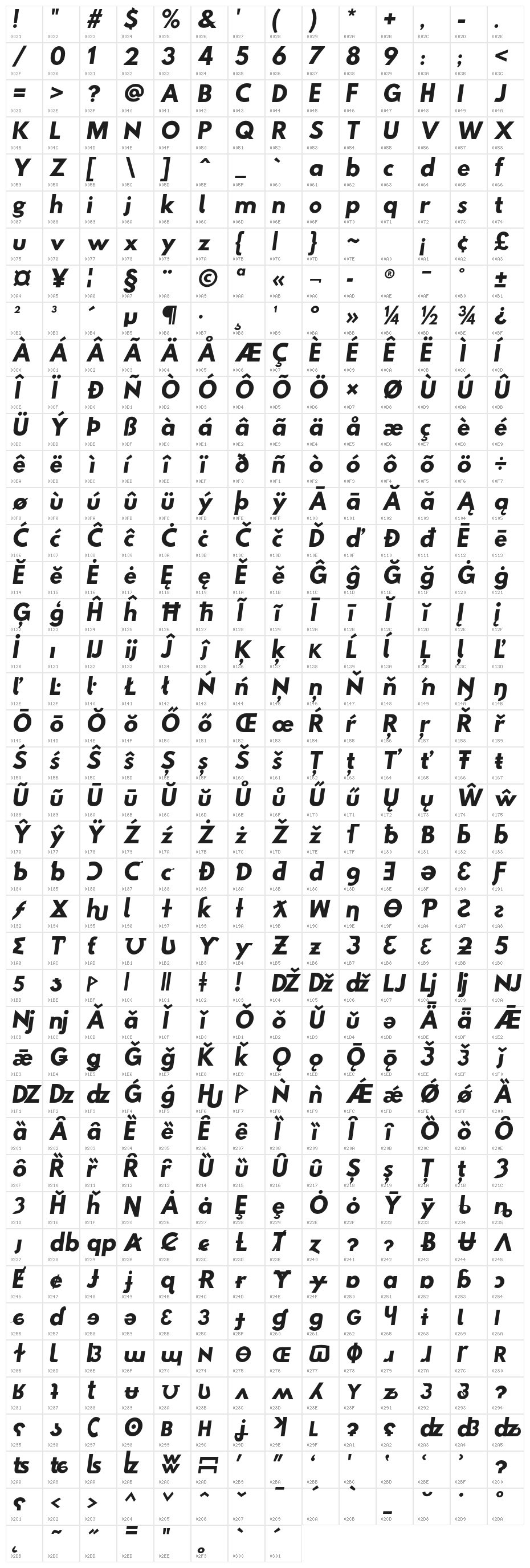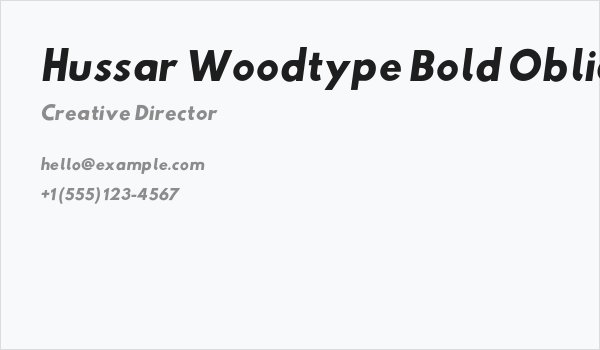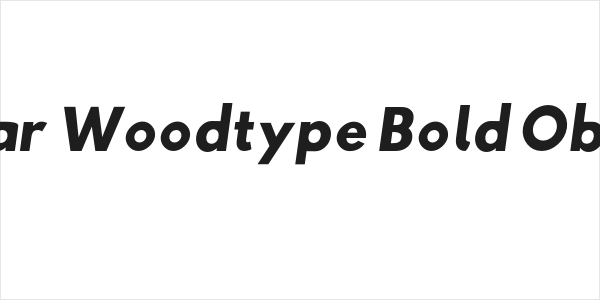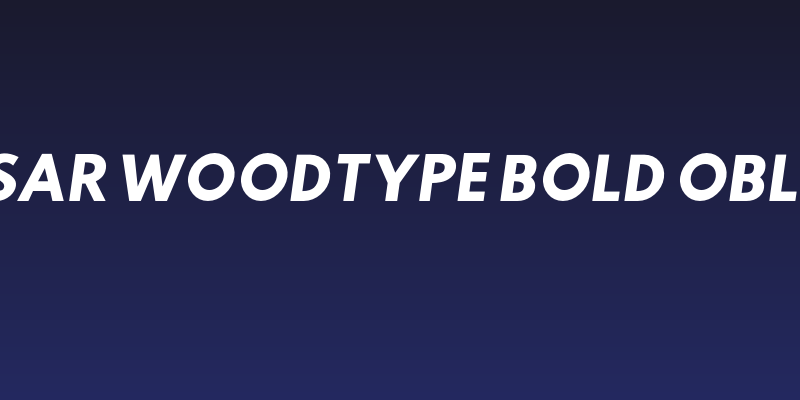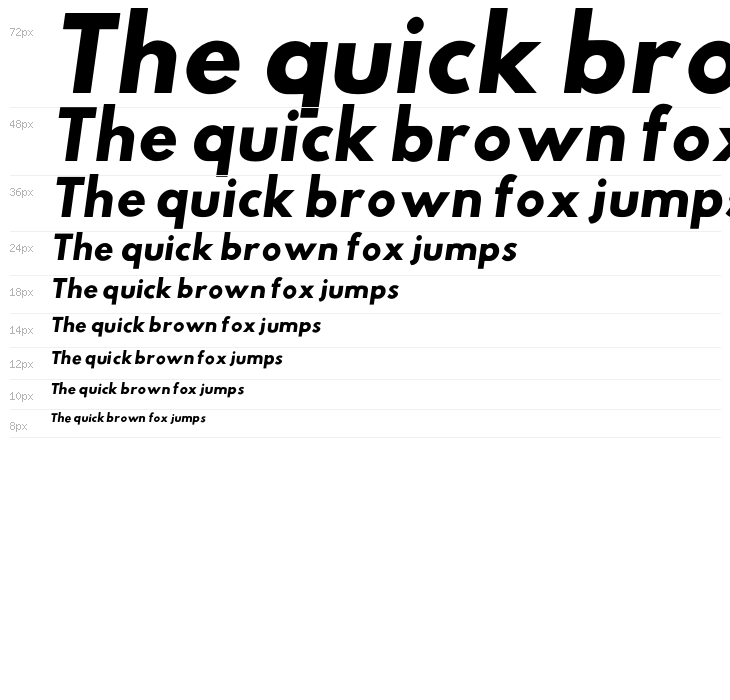
Hussar Woodtype Bold Oblique Font
Hussar Woodtype Bold Oblique Description
This font features a bold and oblique style with a strong presence, characterized by its thick strokes and slanted design. The uppercase and lowercase letters maintain a consistent weight, providing a uniform appearance across the text. The numerals and special characters are designed to match the boldness and slant of the alphabet, ensuring a cohesive look. The font's design is reminiscent of woodtype printing, giving it a vintage yet modern appeal. Its bold nature makes it suitable for attention-grabbing headlines and impactful designs.
| Proposed Projects | Ideal for posters, headlines, branding, and any design requiring a strong, vintage aesthetic. |